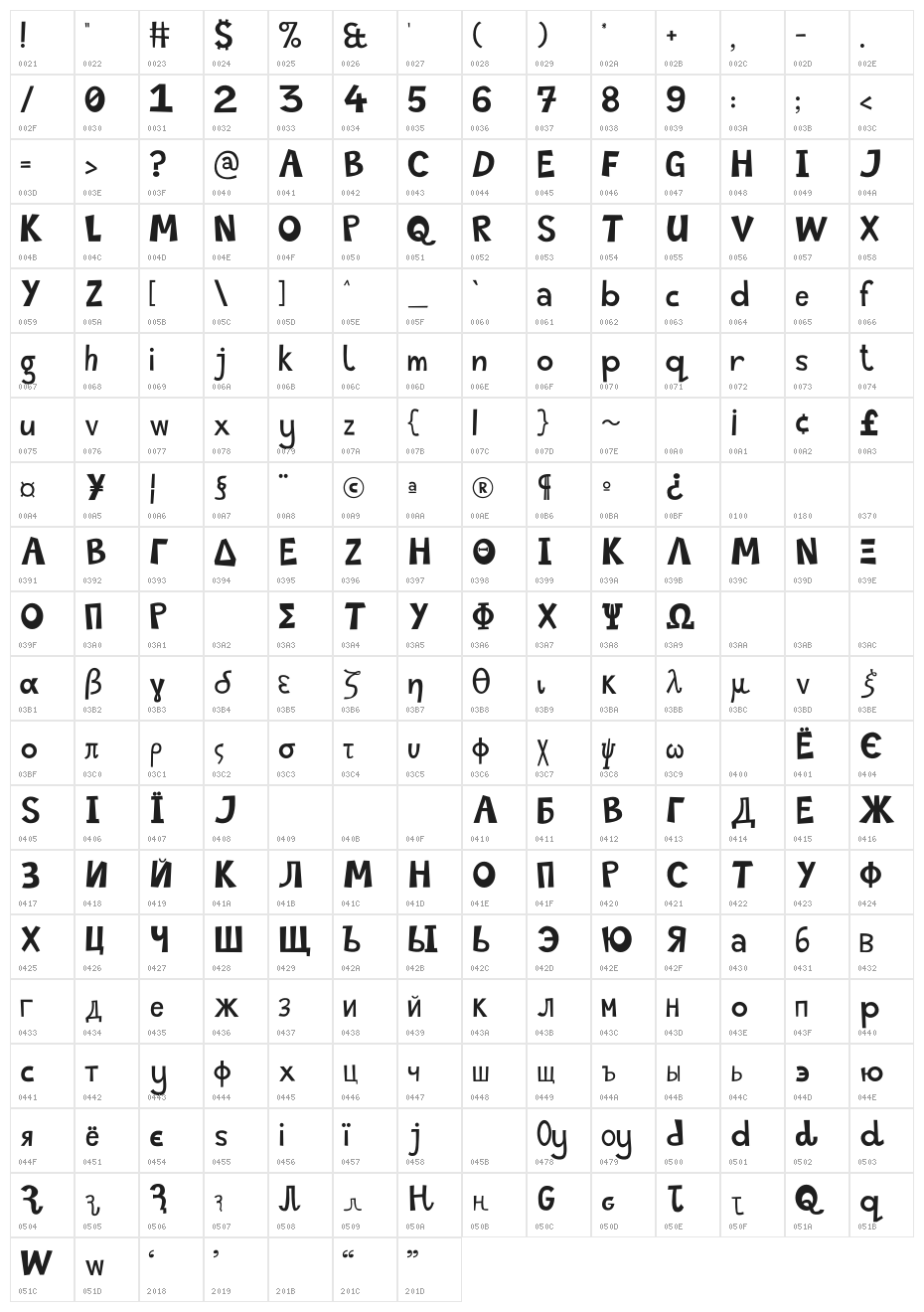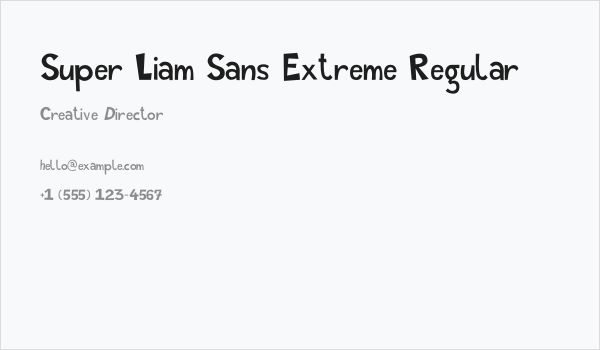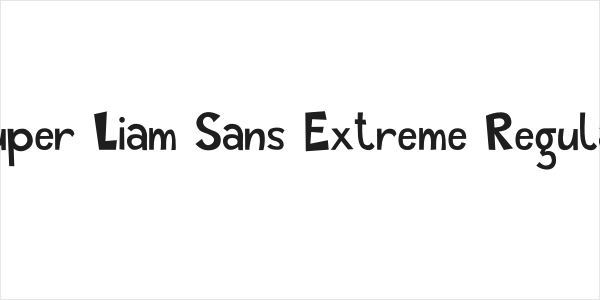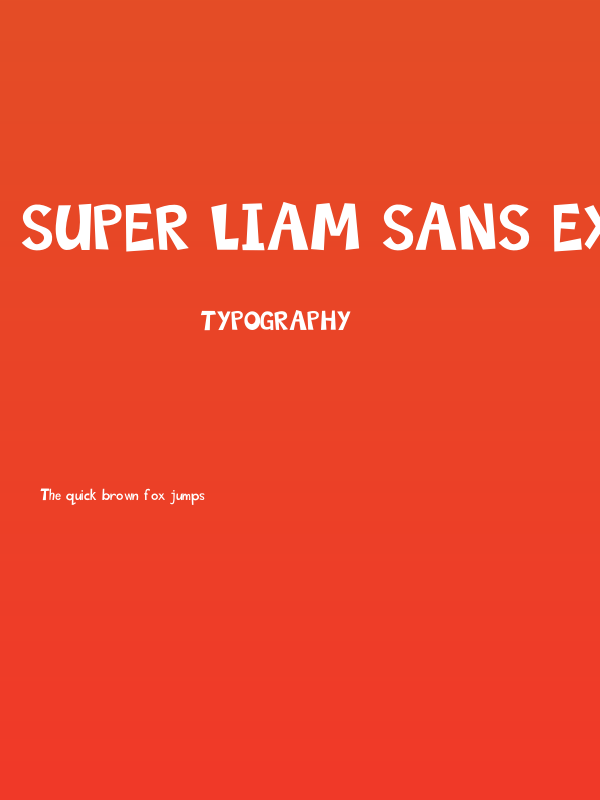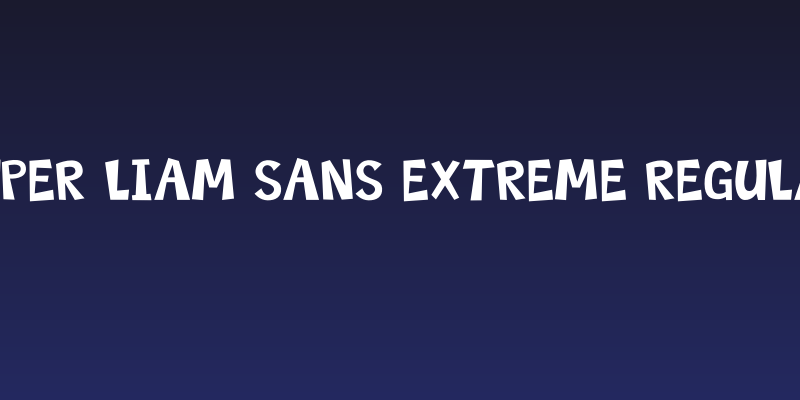
Super Liam Sans Extreme Regular Font
Super Liam Sans Extreme Regular Description
This font exhibits a playful and dynamic style, characterized by its bold and exaggerated letterforms. The uppercase letters have a whimsical, slightly irregular shape, giving them a lively appearance. The lowercase letters maintain a similar playful aesthetic, with some characters featuring unique curves and angles. The numerals are bold and consistent with the overall style, ensuring readability while maintaining the font's distinctive character. The special characters are creatively designed, adding to the font's charm and versatility. This font is well-suited for projects that require a fun and engaging visual impact.
| Overall Style | Playful, Fun, Dynamic |
| Proposed Projects | Ideal for children's books, playful branding, posters, and creative advertising. |